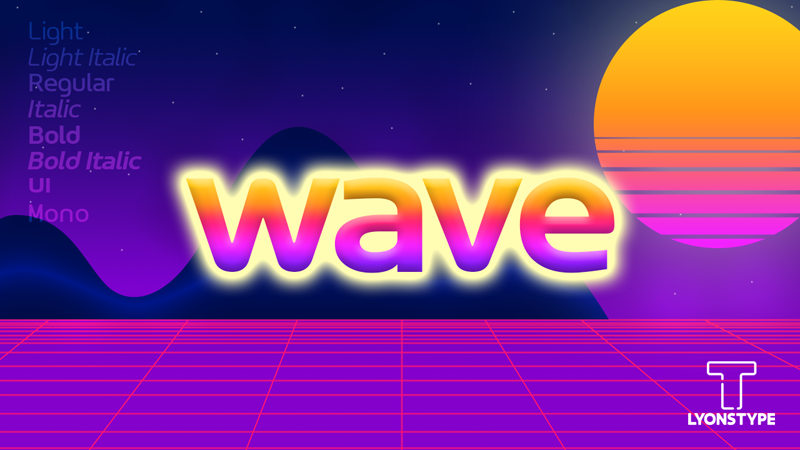
Font name: | LT Wave |
Author: | Daniel Lyons |
Note by Daniel Lyons | |
LyonsType gives a warm welcome to a futuristic typeface named "Wave" - which makes a quality resemblance with synthwave, retrowave and other 80's elements. The design of this font pays a reference to the logotype of the 20 years defunct ISP from the UK called "Freeserve", however it is uncertain whether or not there was an actual bespoke typeface made solely for it. But on the other hand, the typeface also can be used for any bespoke elements such as sports, headlines, user interfaces, digital, and so on - as well as for YouTube videos and any online content. LT Wave consists of the following families: Light Light Italic Regular Italic Bold Bold Italic UI [User Interface] Mono Enjoy your use of "Wave" from LyonsType. |